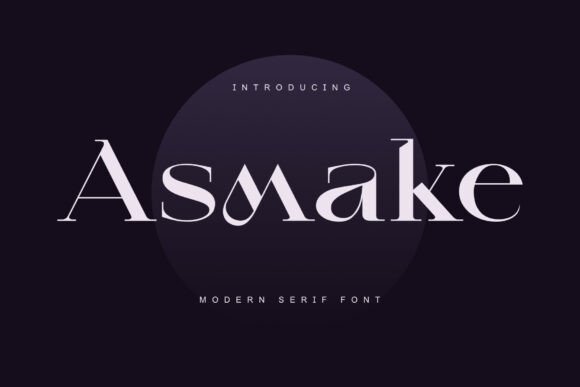
The Designer’s Delight: Asmake Font
I’ll never forget the struggle I faced while working on a branding project for a luxury lifestyle magazine. My client wanted a font that exuded elegance, sophistication, and a touch of modernity. I scoured the internet, tried countless fonts, but nothing seemed to fit the bill. That was until I stumbled upon Asmake Font. ✨
Asmake is a modern serif font that has been a game-changer for me. Its refined curves, clean lines, and timeless style make it perfect for logos, editorial layouts, and branding projects. In this article, I’ll share my experience with Asmake, its features, and how to make the most of it in your designs.
• ✨ Refined curves and clean lines: Asmake’s design is sleek and sophisticated, making it perfect for high-end branding projects.
• ✅ Timeless style: This font strikes a balance between classic and contemporary design, ensuring it won’t go out of style anytime soon.
• ✅ Carefully crafted serif details: The serifs are designed to deliver clarity, consistency, and a strong visual presence, making it suitable for packaging, magazines, and lifestyle visuals.
While Asmake is an excellent font, there are a few things to keep in mind: ⚠️
• 🤔 Limited availability of stylistic alternates: Asmake has a range of OpenType features, but some users may find the options limited.
• ⚠️ Not ideal for body text: Asmake is designed for headlines and titles, and may not be the best choice for body text due to its serif nature.
3. Experiment with OpenType features, such as ligatures and stylistic alternates, to add visual interest to your design.
Asmake was designed with the goal of creating a modern serif font that blends classic elegance with contemporary style. The designer drew inspiration from traditional serif fonts, refining the curves and lines to create a clean and timeless look. The result is a font that is both sophisticated and versatile.
Q: What is Asmake Font best suited for?
A: Asmake Font is ideal for logos, editorial layouts, branding projects, packaging, magazines, and lifestyle visuals.
Q: Can I use Asmake for body text?
A: While Asmake can be used for body text, it’s primarily designed for headlines and titles. You may want to consider a sans-serif font for body text.
Q: Does Asmake support OpenType features?
A: Yes, Asmake supports OpenType features, including ligatures and stylistic alternates.
Q: Is Asmake a versatile font?
A: Yes, Asmake is a versatile font that can be used in a range of design projects, from luxury branding to editorial layouts.